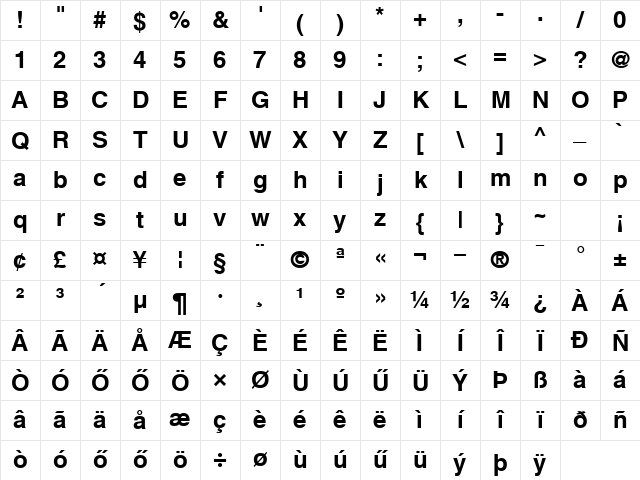
Complete H_Helvetica Bold glyph index. Displaying only characters natively supported by H_Helvetica Bold font.
H_Helvetica is a composed and adaptable typeface that performs quietly and consistently across a wide range of design contexts. Its bold stroke weight gives it real presence on the page.
Pro Tip: Use H_Helvetica in both headline and body roles to test its range before committing to a single application.